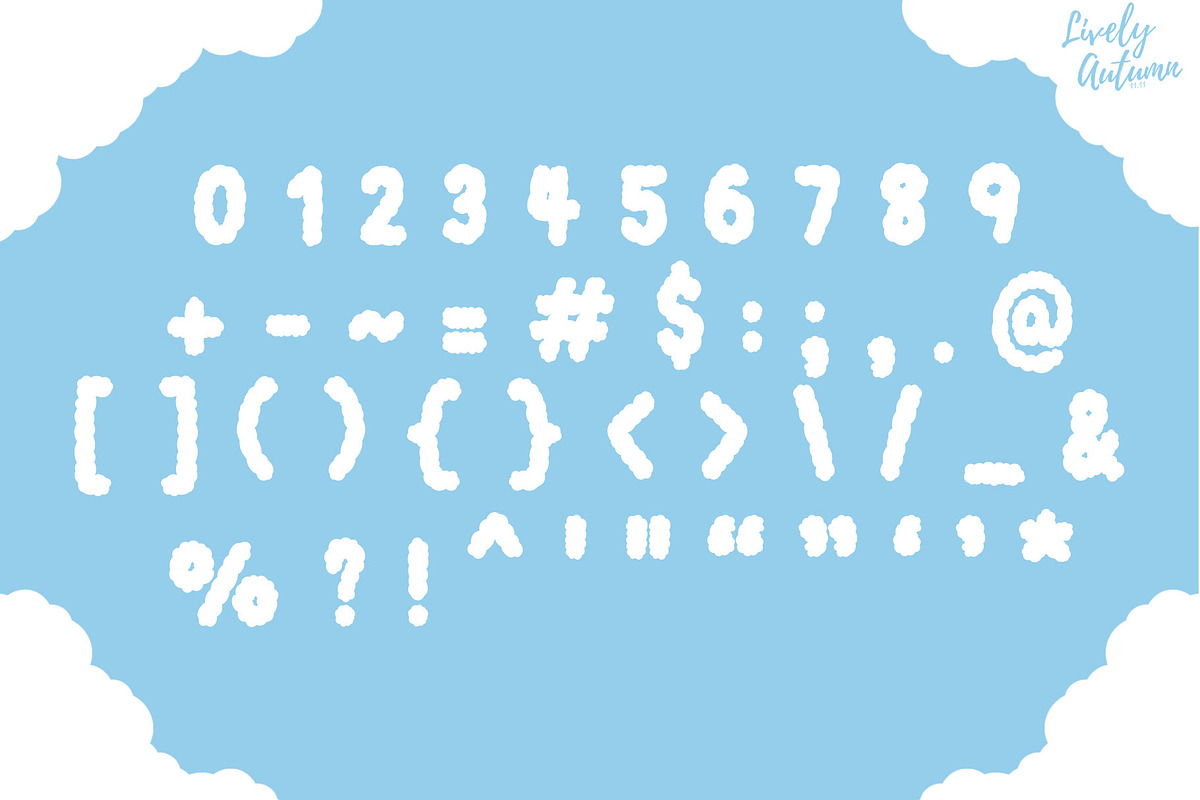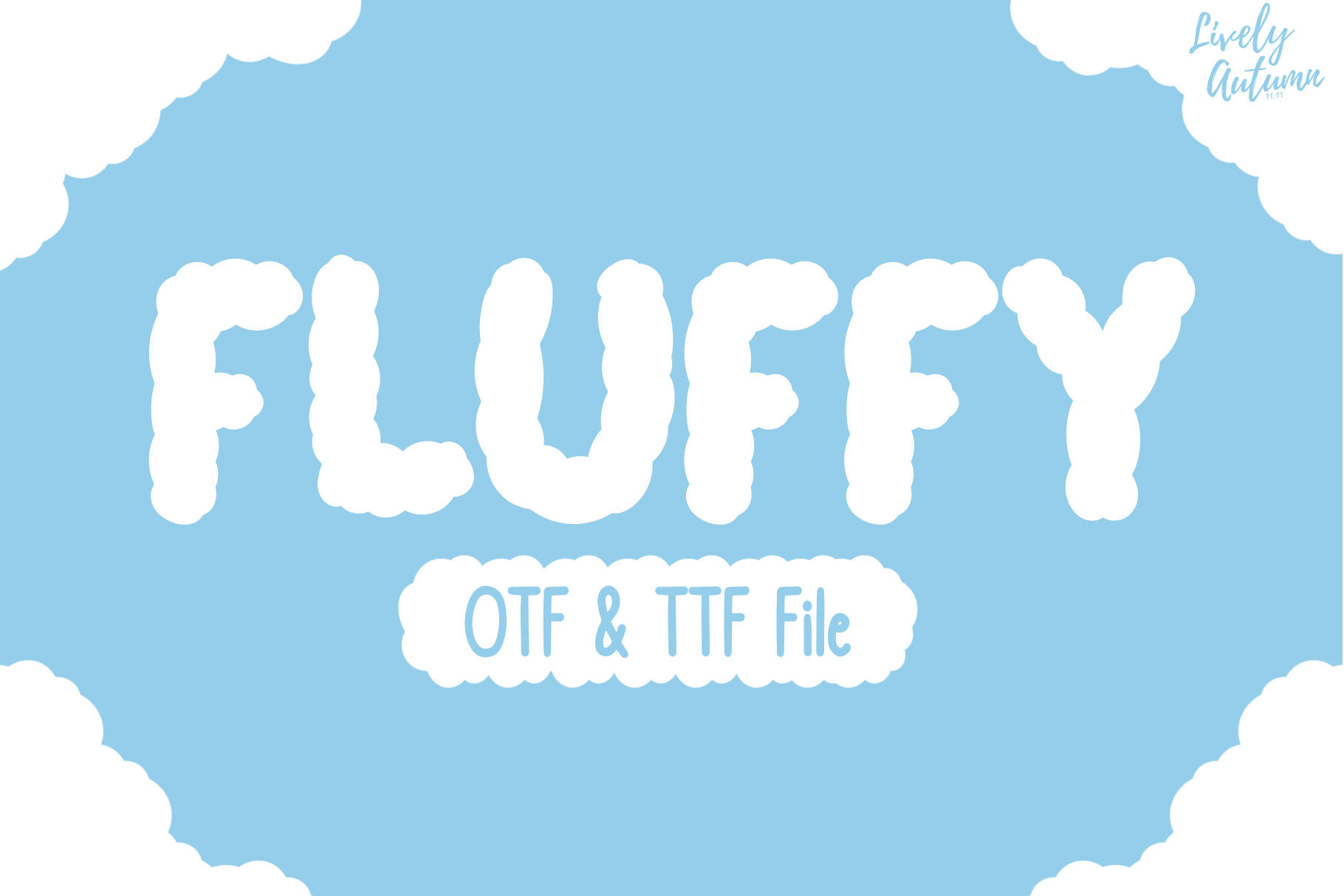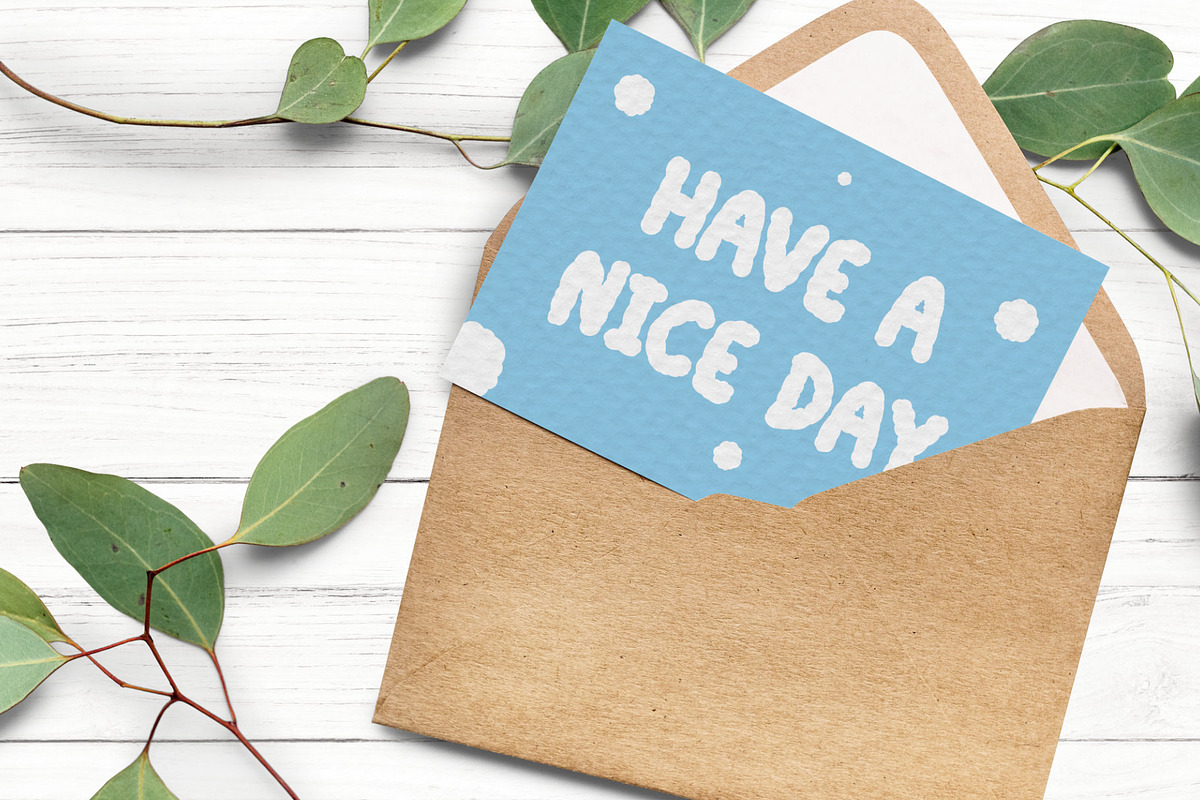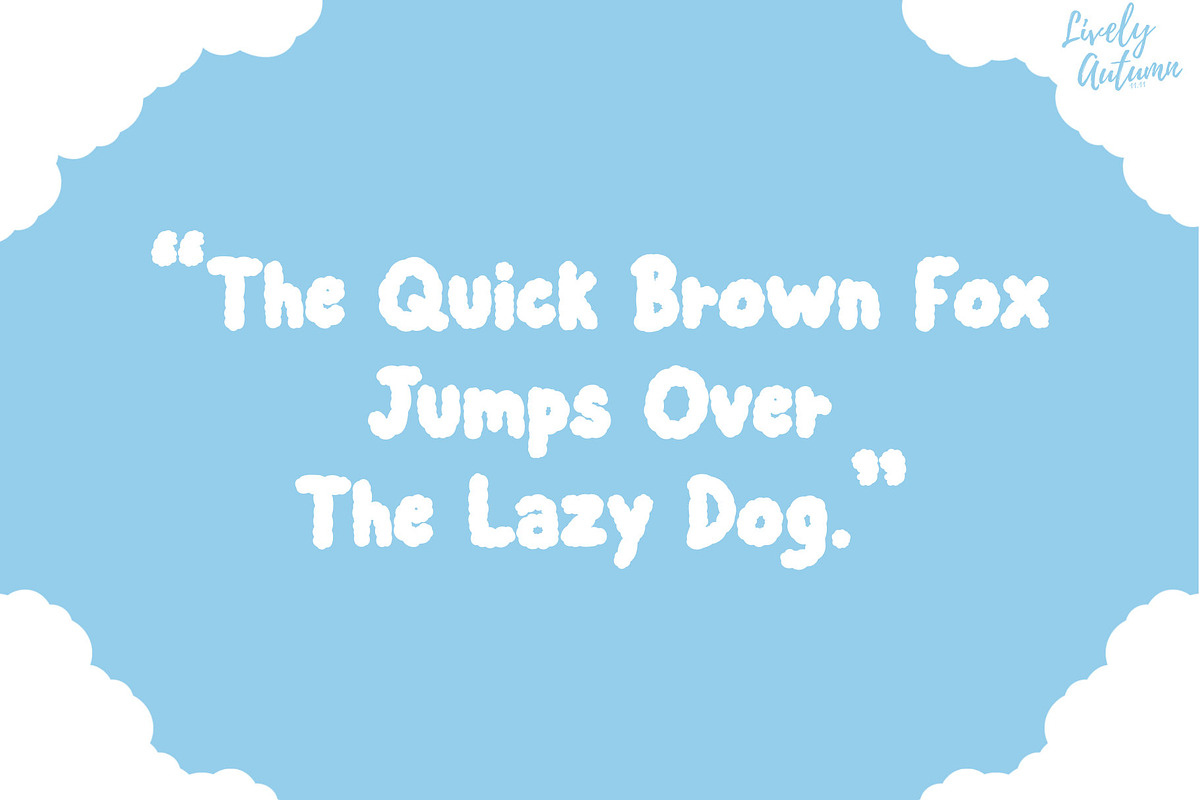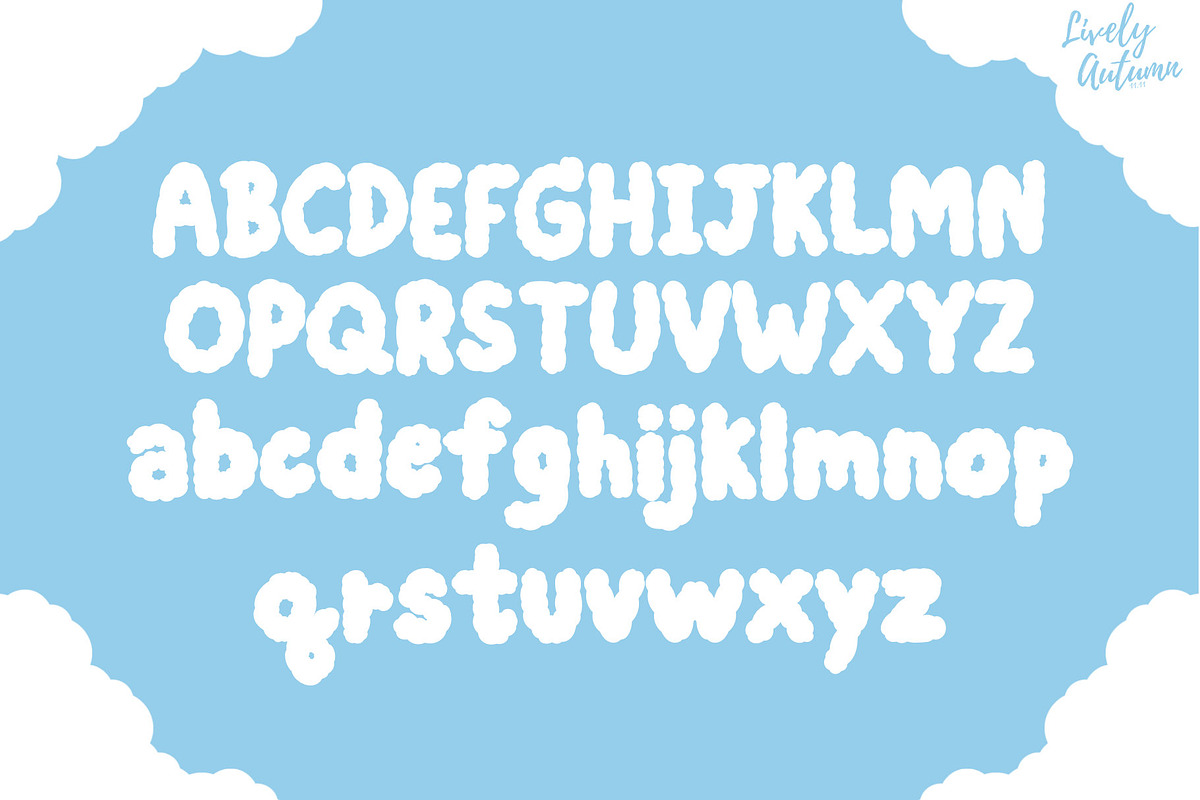
Fluffy | Hand drawn Sans serif Font
Fluffy Font is a hand-drawn sans serif typeface designed with a fluffy, rounded style. Perfect for your personal projects, and various projects. From invitations to posters, social media graphics, journals, and much more.
- Font includes: uppercase, lowercase, numbers, and punctuation.